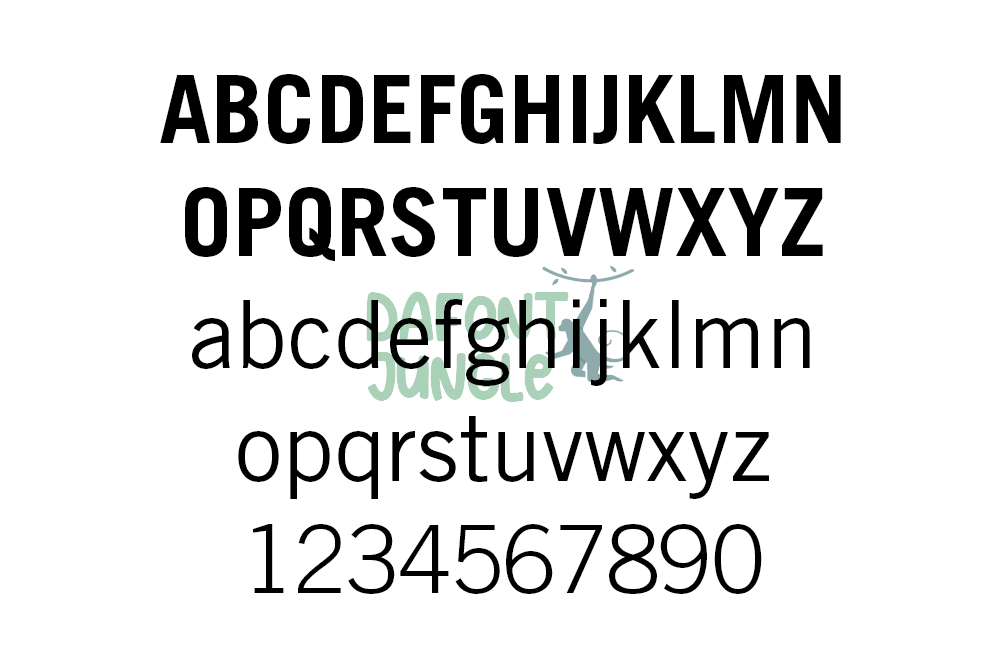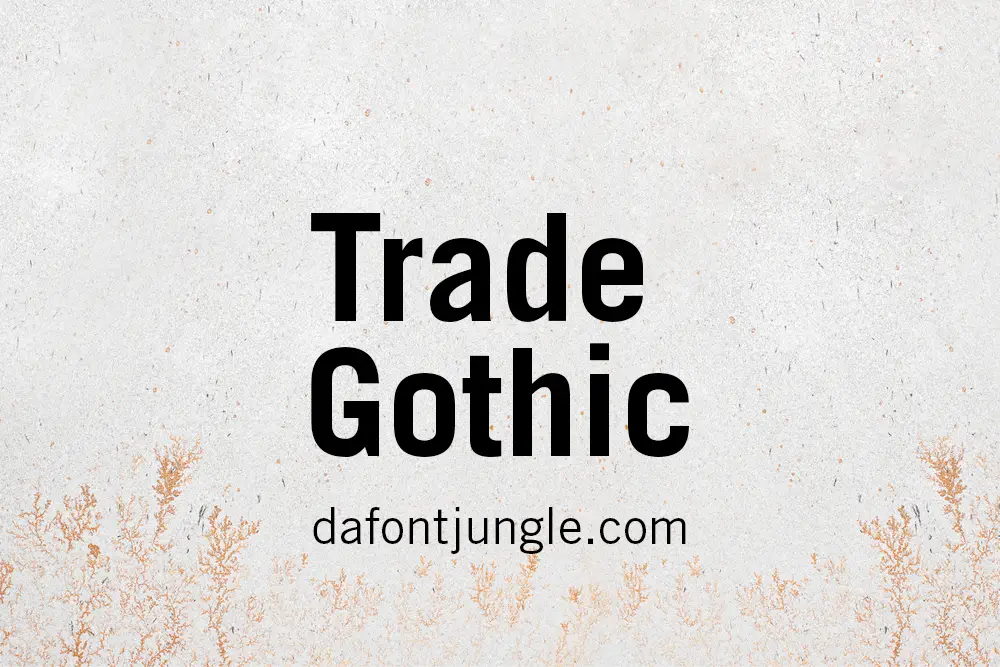
Trade Gothic is a classic sans serif font originally designed by Jackson Burke in 1948, with additional styles added through 1960. Unlike many geometric sans serifs, Trade Gothic has a more organic and irregular character, which gives it a humanist feel. Its condensed styles are especially popular in the newspaper industry for headlines, while its full family is frequently used in advertising and multimedia design, often paired with roman text fonts.